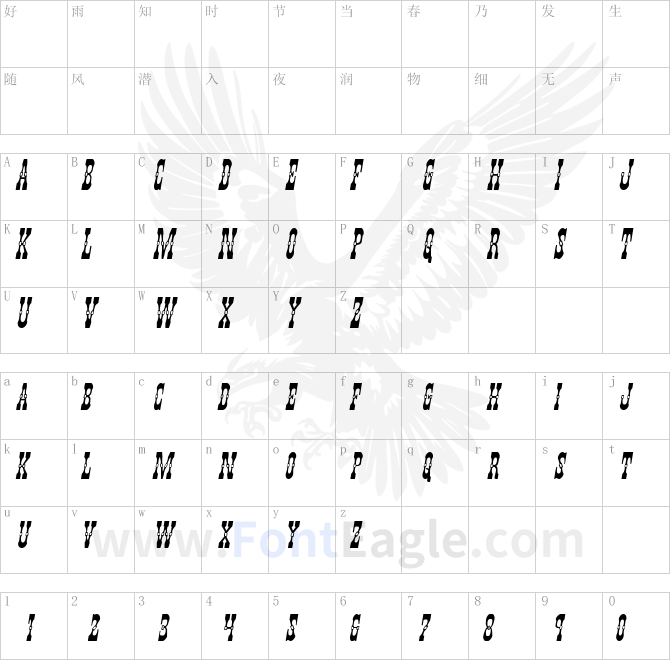
Younger-Brothers-Italic is a great font, widely used in graphic design, single-page menu design, poster design and other fields, and is deeply loved by designers.Younger-Brothers-Italic download.